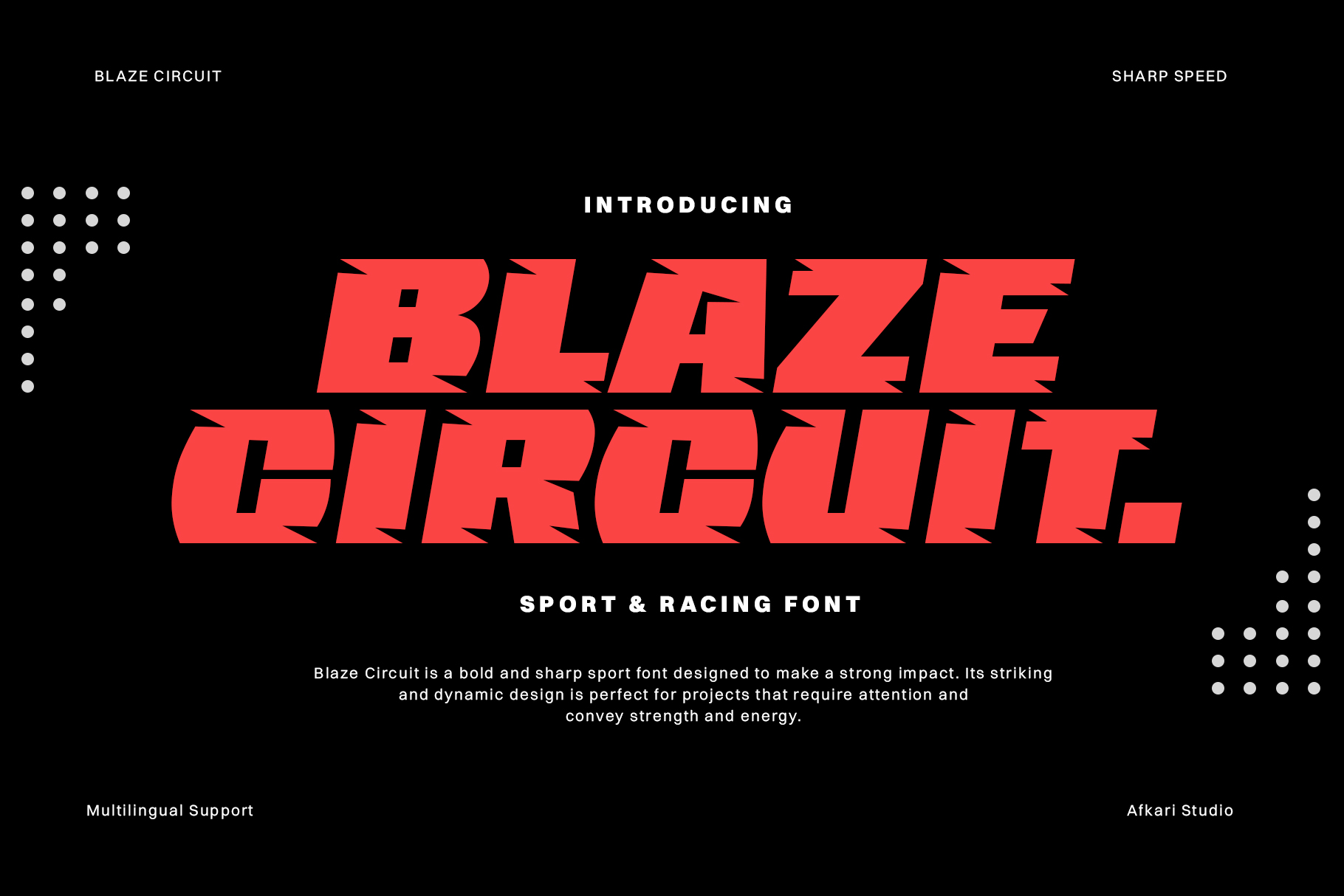
Blaze Circuit - Bold Sport & Racing Font Font
Designed by Afkari Studio
About Blaze Circuit - Bold Sport & Racing Font
Introducing Blaze Circuit – Bold Sport & Racing Font. Blaze Circuit is a high-octane typeface, expertly designed to embody the adrenaline and speed of the racing world. With its bold, dynamic structure, this font is set to ignite your creative projects, infusing them with a sense of motion and power.
Blaze Circuit - Bold Sport & Racing Font